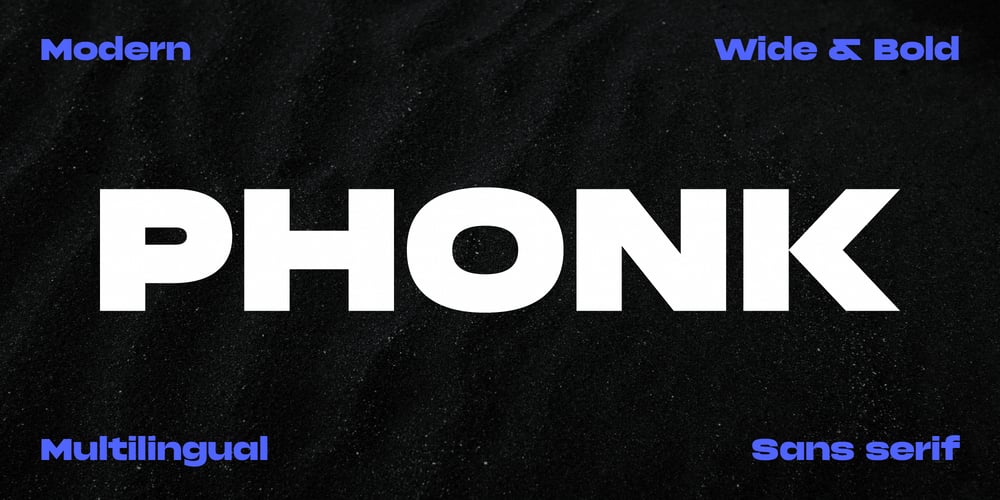
Phonk Font Family was designed by Slava Antipov and published by Slava Antipov. Phonk contains 6 styles and family package options. Phonk is a bold and wide sans serif.It’s great for logos, packaging, posters, advertising and other tasks requiring strong and bold typography.The font family contains the following 4 styles: Regular, Regular Italic, Contrast, Contrast Italic. Contrast styles are characterized by increased readability in small font sizes.Phonk has very wide language support (100+ languages). The font includes Latin and Cyrillic scripts.I recommend you check out the new and improved version of this font! Phonk Sans